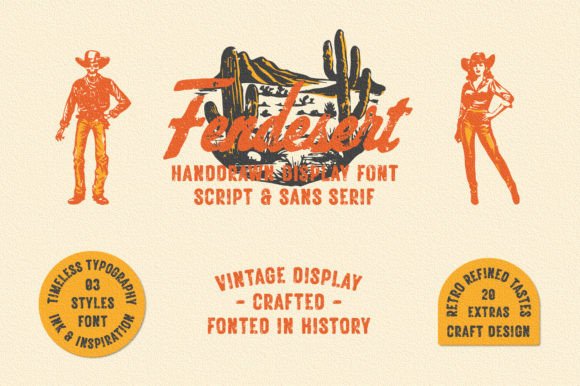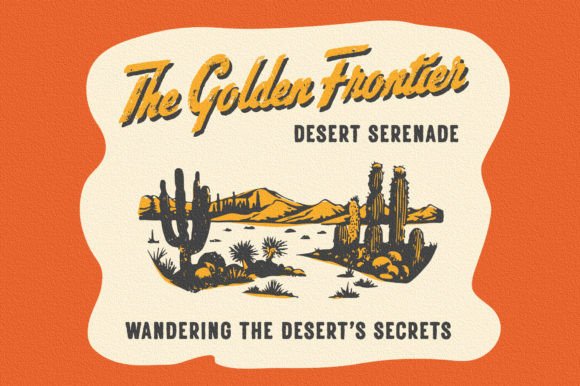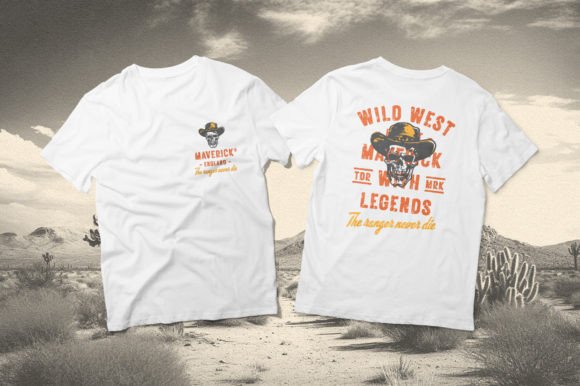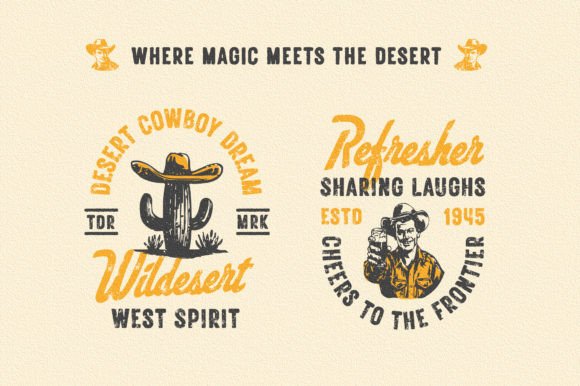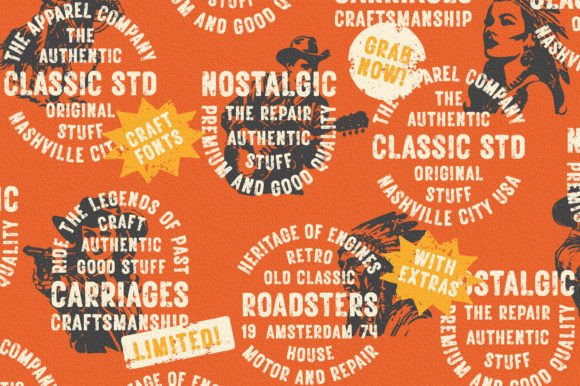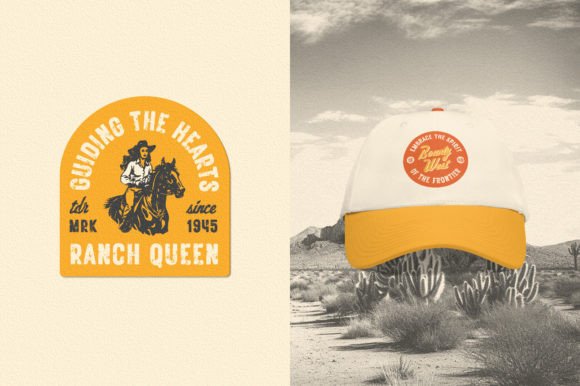
Unlock Vintage Charm with Fendesert: The Ultimate Font Duo for Designers
Are you tired of using the same old fonts in your designs? Do you want to add a touch of vintage charm to your branding, apparel, or marketing materials? Look no further than Fendesert, the ultimate vintage and stamp font duo that’s taking the design world by storm.
What is Fendesert?
Fendesert is a carefully crafted font collection that features a pair of script and sans serif fonts in regular, rough, and stamp styles. This versatile duo is perfect for designers and crafters who want to elevate their designs with a unique and eye-catching flair. Whether you’re working on a logo, branding project, or apparel design, Fendesert has got you covered.
The Fonts
The Fendesert font collection includes two main fonts: a beautiful script font and a clean sans serif font. Both fonts come in three styles:
- Regular: Perfect for designs that require a clean and elegant look.
- Rough: Adds a touch of texture and imperfection to your designs, giving them a more organic feel.
- Stamp: Features a distressed, stamp-like effect that’s perfect for creating vintage-inspired designs.
With these three styles, you can mix and match to create a wide range of unique and creative designs.
Western Illustrations
But that’s not all – the Fendesert font collection also includes 20 hand-drawn Western illustrations that you can use to add an extra creative touch to your designs. These illustrations feature a range of vintage-inspired elements, from cowboy hats and boots to cacti and bandannas.
With these illustrations, you can create truly unique and eye-catching designs that will set you apart from the competition.
Fendesert is perfect for designers and crafters who want to add a touch of vintage charm to their work. Whether you’re working on:
- Logos and branding: Use Fendesert to create a unique and memorable brand identity.
- Apparel: Add a touch of vintage flair to your t-shirt designs, posters, and other apparel.
- Marketing materials: Use Fendesert to create eye-catching flyers, brochures, and other marketing materials.
Fendesert is the perfect tool to help you unlock your creativity and take your designs to the next level.
Why Choose Fendesert?
So why choose Fendesert over other font collections? Here are just a few reasons:
- Unique and versatile: Fendesert offers a unique combination of script and sans serif fonts in regular, rough, and stamp styles.
- High-quality: The fonts and illustrations in the Fendesert collection are carefully crafted to ensure high-quality and precision.
- Great value: With Fendesert, you get a comprehensive font collection and 20 hand-drawn illustrations – a great value for designers and crafters.
If you’re looking to elevate your designs with a touch of vintage charm, look no further than Fendesert. This ultimate font duo offers a unique combination of script and sans serif fonts in regular, rough, and stamp styles, along with 20 hand-drawn Western illustrations.
Perfect for designers and crafters, Fendesert is the perfect tool to help you unlock your creativity and take your designs to the next level. So why wait? Unlock vintage charm with Fendesert today!